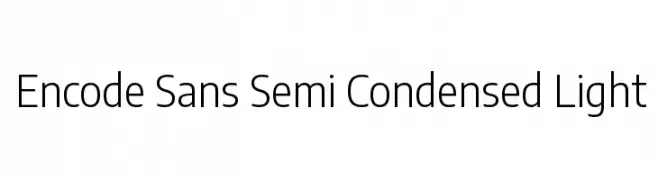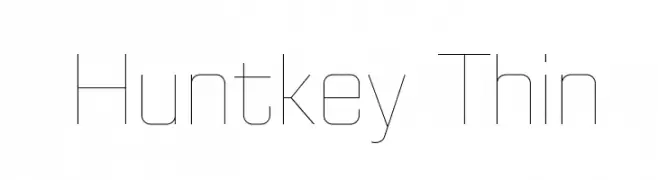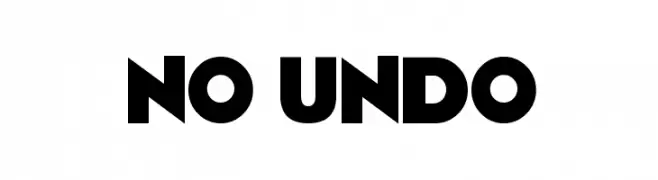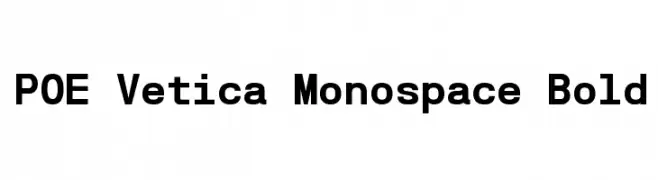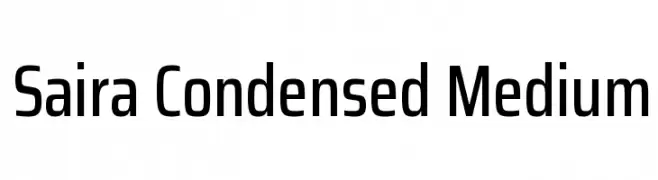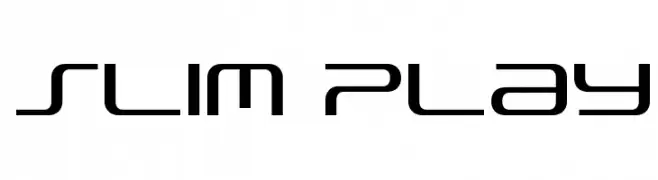
A bold, condensed sans-serif font with a modern and clean design.
A sleek, minimalist font with thin, clean lines and a modern aesthetic.
A modern, condensed sans-serif font with a clean and professional appearance.
A modern, semi-condensed sans-serif font with a light weight and excellent legibility.
A modern, geometric outline font with a clean and structured appearance.
A clean, monospaced font ideal for coding and technical documentation.